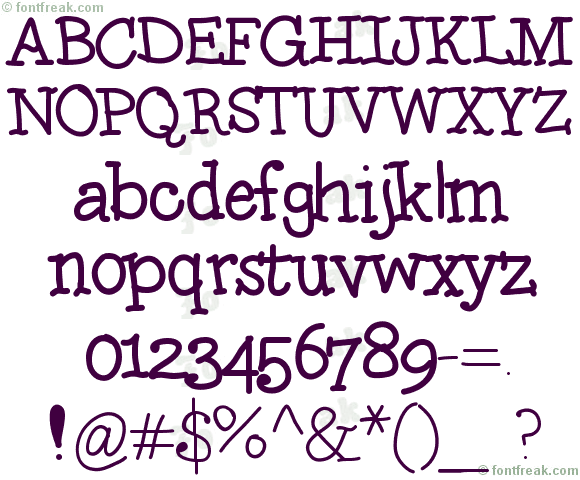
Squishy
About Squishy
The Squishy font by Vanessa Bays is a playful display typeface that captures a sense of whimsy and charm. As a decorative font, it features rounded, soft edges that evoke a sense of friendliness and approachability. The stroke weight is varied, with thicker outlines that lend a bold presence while maintaining a light and airy feel through its gentle curves. This unique combination of characteristics creates a visual appeal that is both engaging and fun, making it an excellent choice for a variety of creative projects.
The Squishy font works exceptionally well in a number of specific use cases. It is perfect for children's book covers, where its playful nature can attract young readers. Additionally, it serves as a delightful choice for party invitations, adding a touch of cheer to celebrations. Restaurant menus can also benefit from this font, particularly in casual dining settings where a friendly vibe is desired. Furthermore, it can be effectively utilized in social media graphics, helping content creators to convey a sense of warmth and engagement with their audience.
What sets the Squishy font apart is its ability to blend creativity with functionality. Its distinctive style captures attention while remaining legible, making it versatile for both print and digital applications. For anyone seeking a fun and engaging typeface, the Squishy font free download is an excellent option that can breathe life into any project.